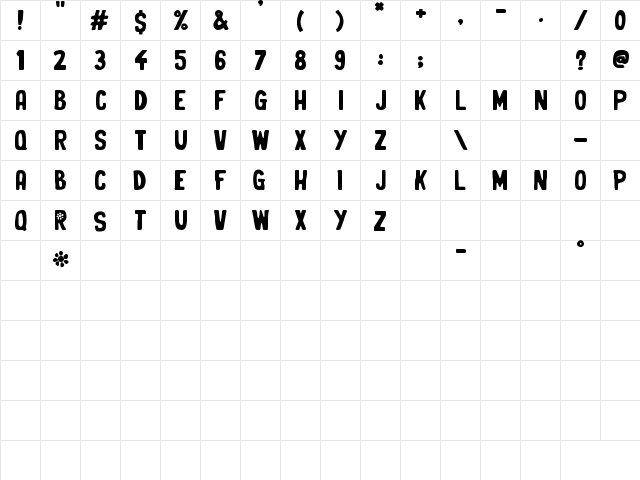
Organic Brand Regular
Design Context for Organic Brand Typeface
Organic Brand takes a measured approach to typography — its balanced proportions and neutral character make it a reliable workhorse for both digital and print work.